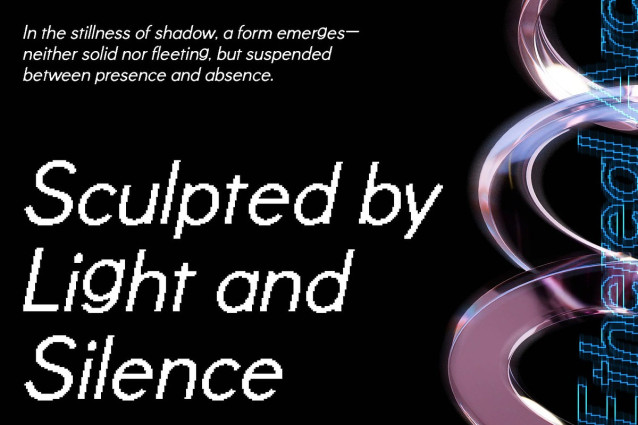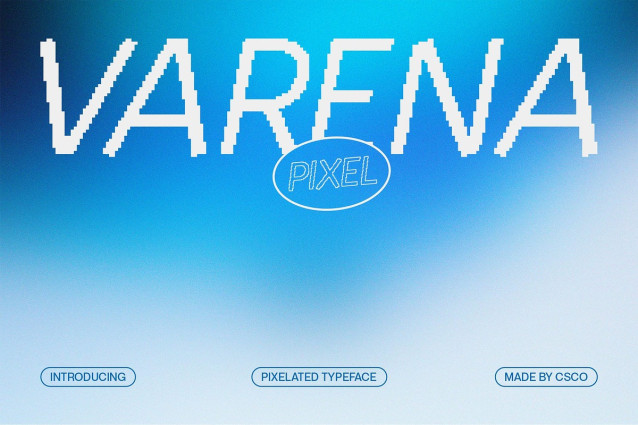
Varena Pixel Font – This is a modern pixel display font that blends nostalgia with contemporary clarity. Built from clean, sans serif-inspired shapes, it captures the essence of retro gaming while offering a polished edge for today’s digital world. Its blocky structure feels both playful and precise, making it instantly recognizable in any design.
Blocky Digital Shapes with Arcade Influence The font strength of lies in its geometric, digital-inspired construction. Each character resembles the blocky screens of early arcade machines, echoing the golden age of gaming. This bold, modular look not only celebrates the past but also adapts seamlessly to modern creative projects, from posters to branding.
Perfect for Games and Playful Branding Designed to stand out, thrives in projects that need a mix of fun and impact. It’s a natural fit for game design, whether in retro-inspired titles or indie projects seeking a pixel aesthetic. Beyond gaming, it works equally well for posters, merchandise, or playful branding campaigns.
Versatile Across Digital and Print Despite its pixel-based roots, remains versatile across multiple mediums. It adapts beautifully to digital interfaces, editorial layouts, and event graphics while keeping its nostalgic personality intact. This makes it a go-to font for designers who want to merge the simplicity of pixels with the strength of modern typography.